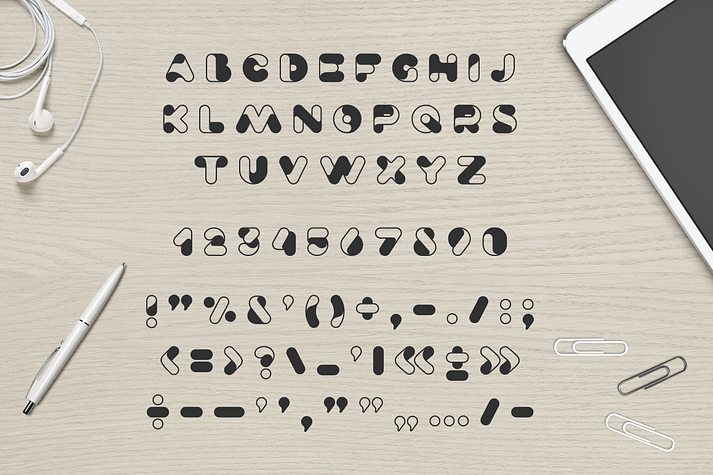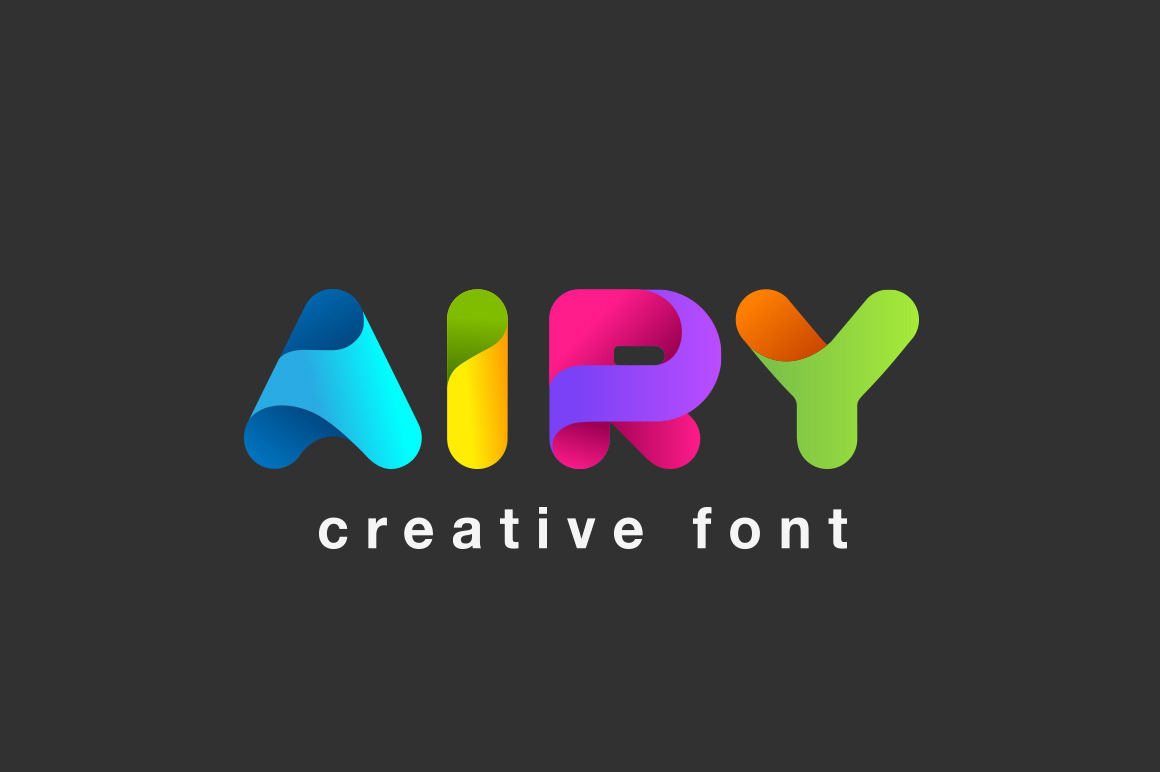
Airy
Airy is a font family published by Sentavio.
Airy is friendly innovative creative font can be used as logo design and branding, titles & headers, posters & banners in such areas as high-tech, internet & computers, business innovations, sport & entertainment etc.
Please note, the color font display in the images are for presentation purposes only to show you what can be created with this font. The files include a BLUE font color as template, so you can quickly and easily change them to your color. You would need to have additional software like Adobe Illustrator or Corel Draw to add color to the font.